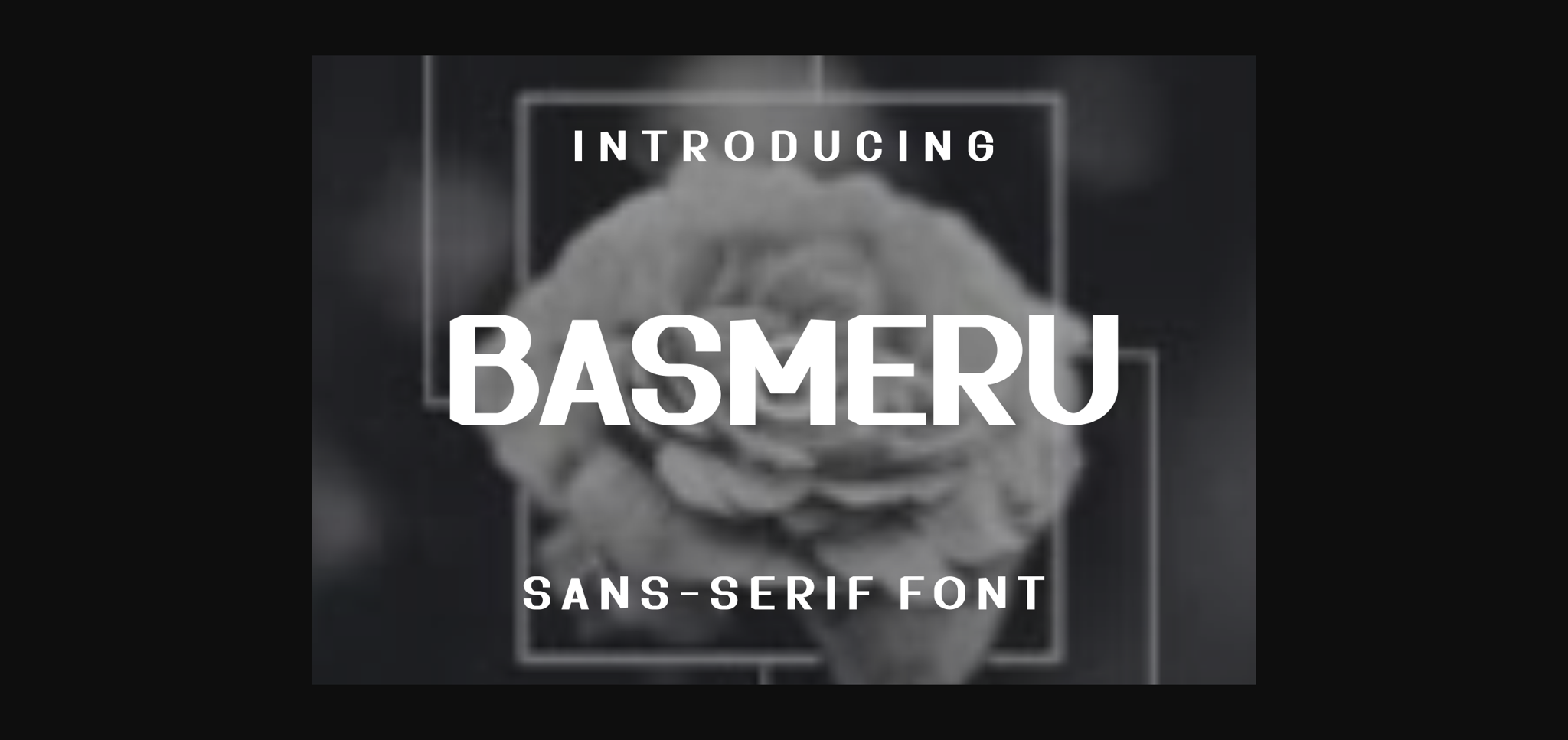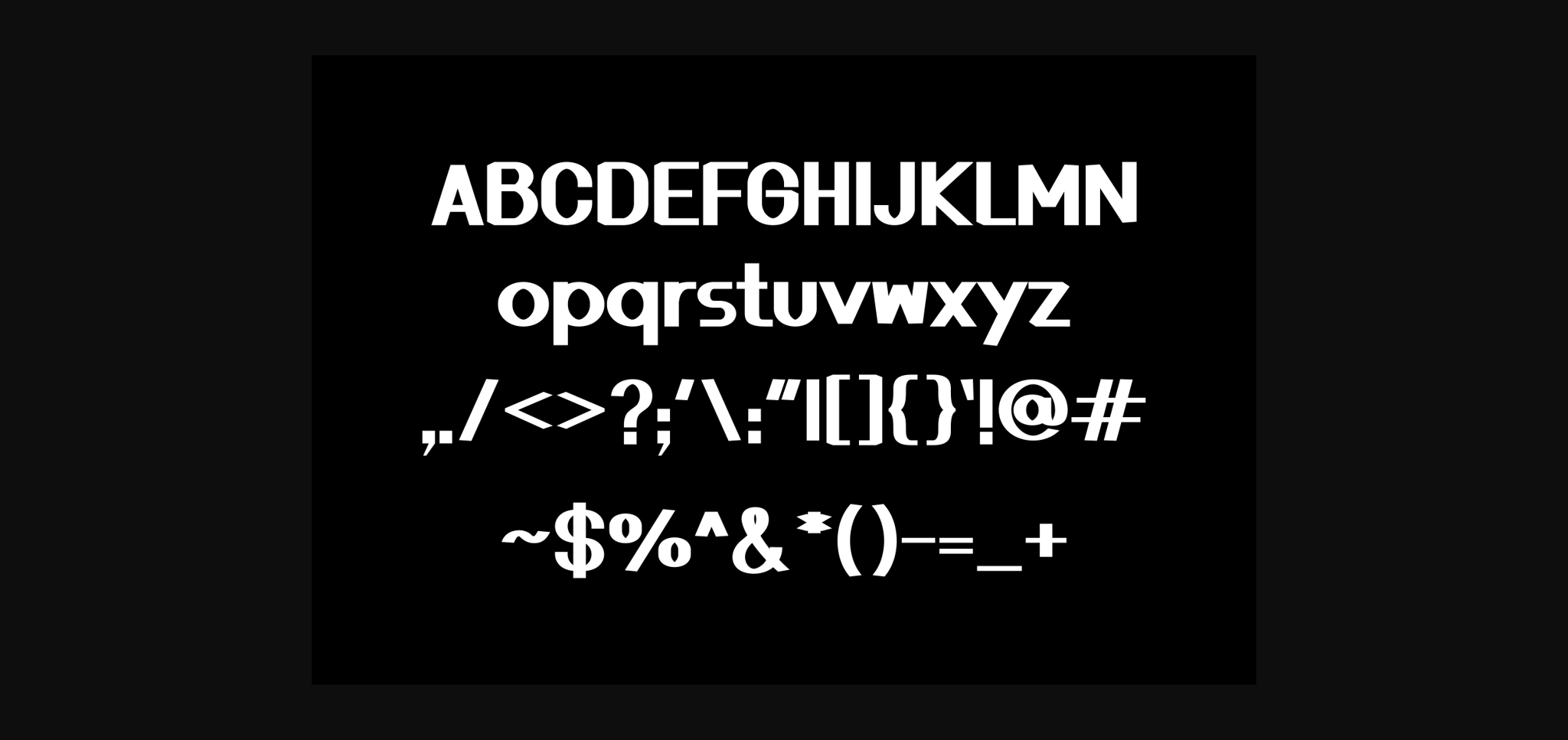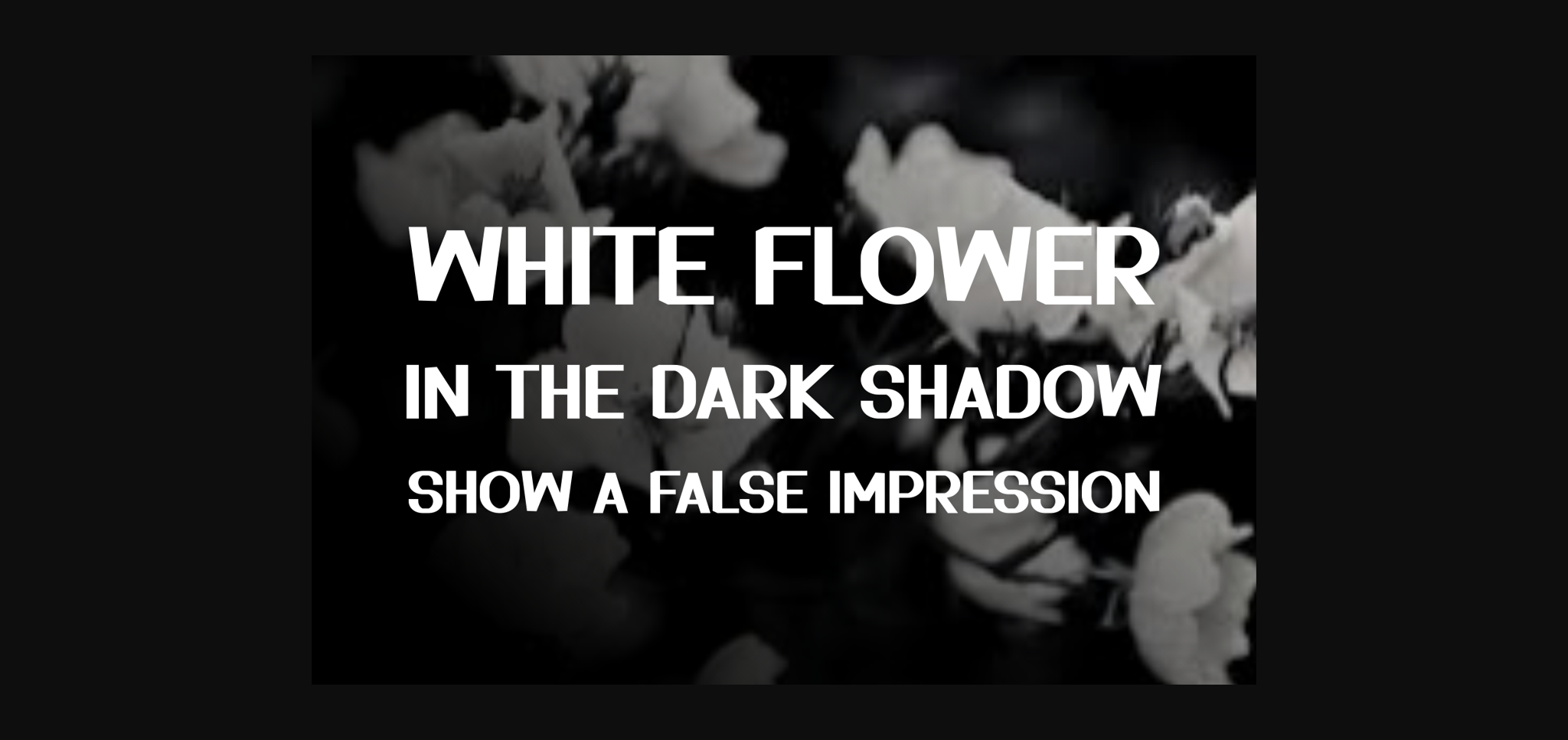
HomeSans Serif FontsBasmeru Font Sans Serif Fonts Basmeru Font FacebookTwitterPinterestWhatsApp 1 of 5 ... Basmeru Font Poster 2... Basmeru Font Poster 3... Basmeru Font Poster 4... Basmeru Font Poster 5... About Basmeru Font Basmeru is a cool and unique sans serif font. Fall in love with its incredibly distinct and timeless style and use it to create spectacular designs! DOWNLOAD NOW People also explored Evanston Font Rotenfold Font Kitten Lovely Font Quick Simple Font Tropical Font Naomi Font Wandella Font Kapsalon Clipboard Black Sketch 237 0 TagsBasmeruBasmeru Font Previous articleGarisa FontNext articleArembo Font LEAVE A REPLY Cancel reply Comment: Please enter your comment! Name:* Please enter your name here Email:* You have entered an incorrect email address! Please enter your email address here Website: Save my name, email, and website in this browser for the next time I comment. Personal Use Free Helsinki Personal Use Free Read more about this font Letter Clips Personal Use Free Read more about this font Sehat Selalu Personal Use Free Read more about this font Valentine Chips Personal Use Free Read more about this font BLOG Free vs Paid Fonts: Why Investing in Premium Fonts Is Worth It Free vs Paid Fonts: Why Premium Fonts Are Worth It in 2025 The debate of free vs paid fonts continues in the design world. While... Best Fonts for YouTube Videos: Make Your Thumbnails Stand Out Top 7 Google Fonts Alternatives for Faster and Privacy-Friendly Web Design (2025) Exploring Font Trends